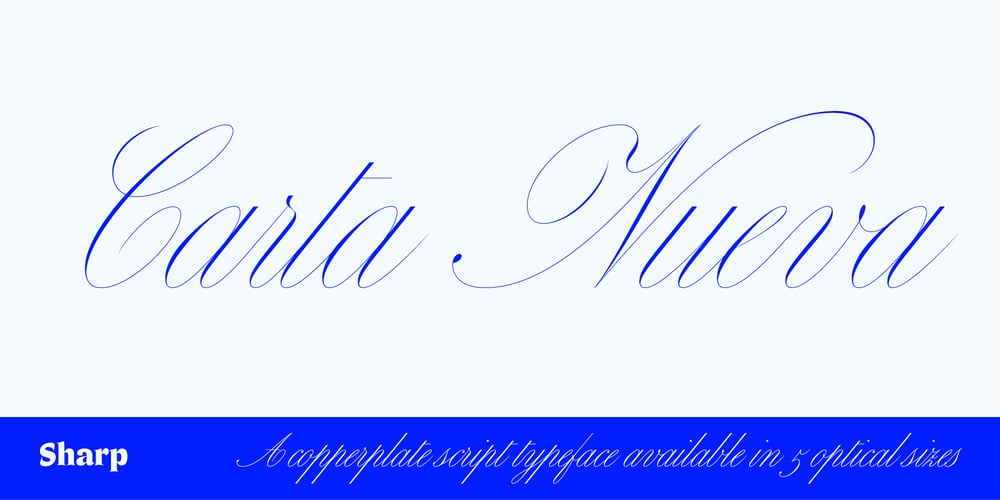
Carta Nueva
Carta Nueva font
Carta Nueva Font Family was designed by Sharp Type and published by Sharp Type. Carta Nueva contains 4 styles and family package options. Carta Nueva is type designer My-Lan Thuong’s digital reimagining of a unique 19th century Spanish calligraphy model found in Madrid, which reproduces the virtuosity and flow of pointed-nib cursive writing. Taking cues from 19th century Copperplate calligraphy, the typeface’s five optical sizes can make a grand gesture through a single word or headline and also dedicate attention to delicate paragraphs of text. Carta Nueva is lively and posed, lending its elegance and rhythm to any possible number of applications, making it a perfect choice for film titles and fashion editorials, and provides a good textural contrast set alongside a strong sans serif.